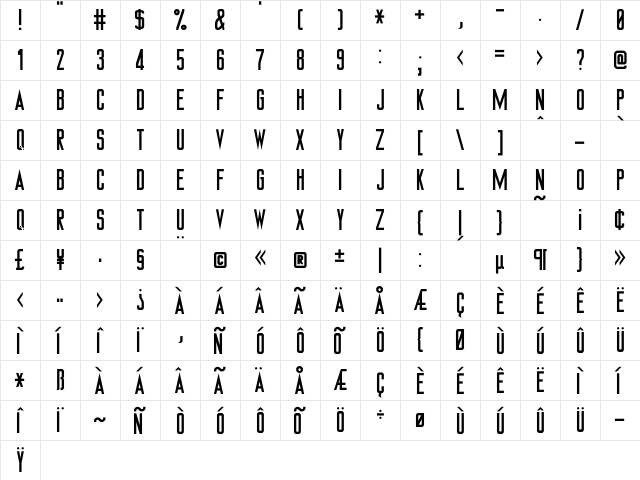
Glenway Regular
Design Context for Glenway Typeface
Glenway is a composed and adaptable typeface that performs quietly and consistently across a wide range of design contexts.